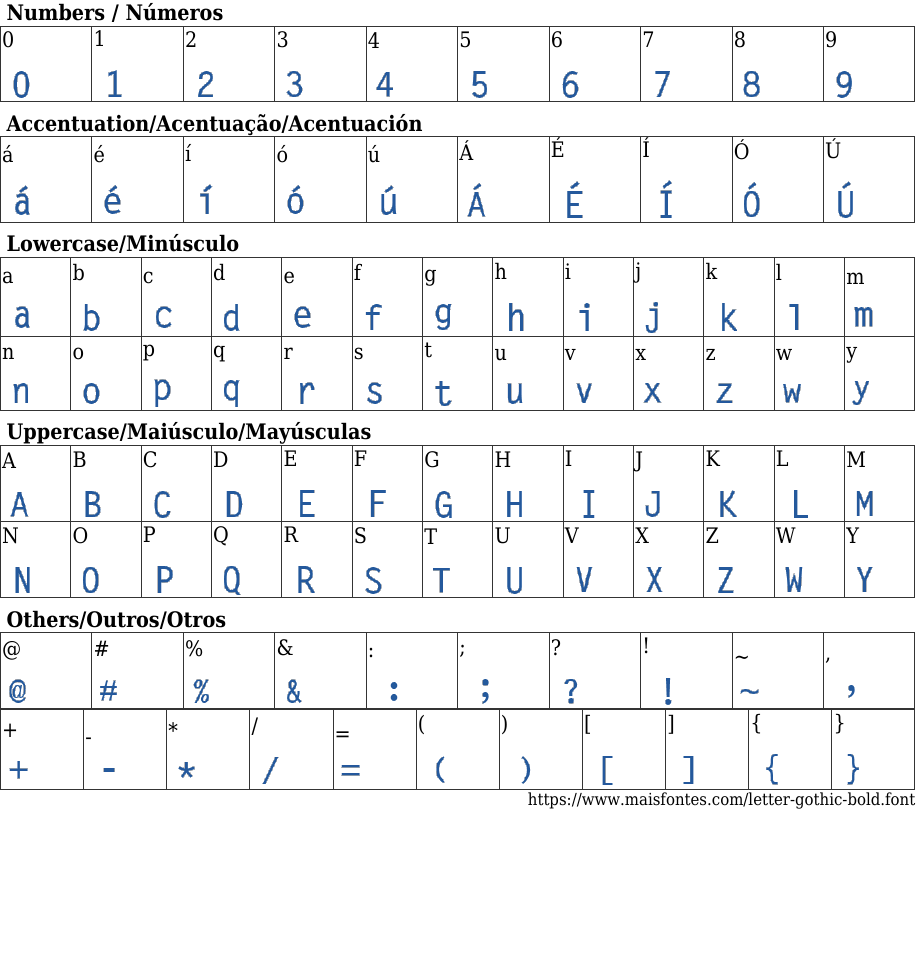
Letter Gothic Bold Font . Unleash your creativity with our free bold, gothic fonts. Letter gothic bold is the perfect font for all your fun designs. With its strong and bold letterforms, this font is perfect. Letter gothic bold is a timeless and versatile font that exudes confidence and professionalism. The font subfamily is bold. Unleash your design potential today! Download letter gothic for free, view sample text, rating and more on fontsgeek.com. Explore gothic bold fonts at myfonts. The font family is letter gothic. Perfect for creating unique designs that make a striking statement. Discover a world of captivating typography for your creative projects.
With its strong and bold letterforms, this font is perfect. Explore gothic bold fonts at myfonts. Discover a world of captivating typography for your creative projects. Perfect for creating unique designs that make a striking statement. Letter gothic bold is the perfect font for all your fun designs. Unleash your design potential today! The font subfamily is bold. The font family is letter gothic. Unleash your creativity with our free bold, gothic fonts. Download letter gothic for free, view sample text, rating and more on fontsgeek.com.
Letter Gothic Bold Font Unleash your creativity with our free bold, gothic fonts. The font subfamily is bold. Unleash your design potential today! The font family is letter gothic. Letter gothic bold is the perfect font for all your fun designs. Download letter gothic for free, view sample text, rating and more on fontsgeek.com. Letter gothic bold is a timeless and versatile font that exudes confidence and professionalism. Explore gothic bold fonts at myfonts. Perfect for creating unique designs that make a striking statement. With its strong and bold letterforms, this font is perfect. Discover a world of captivating typography for your creative projects.